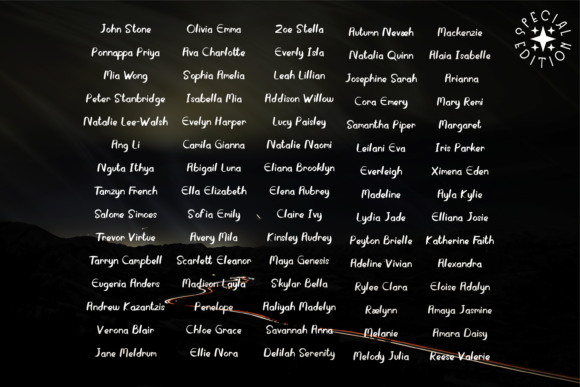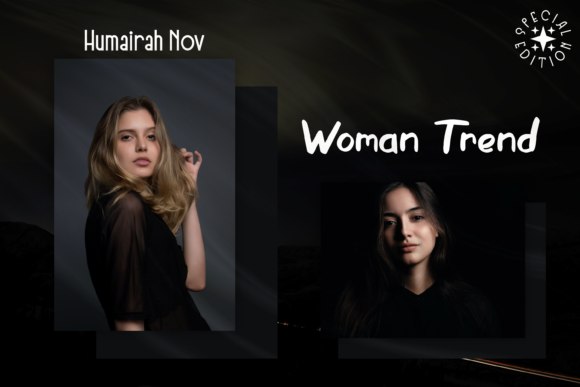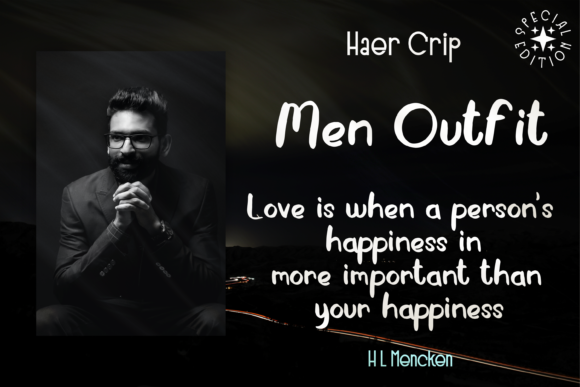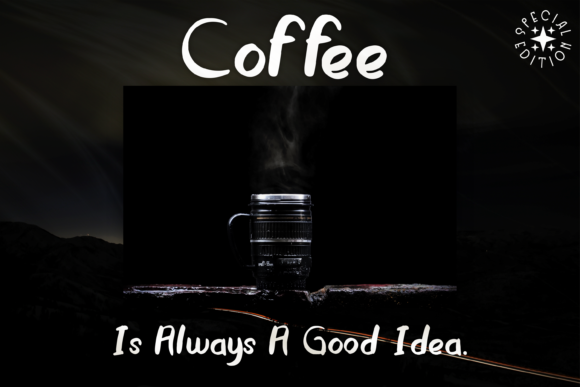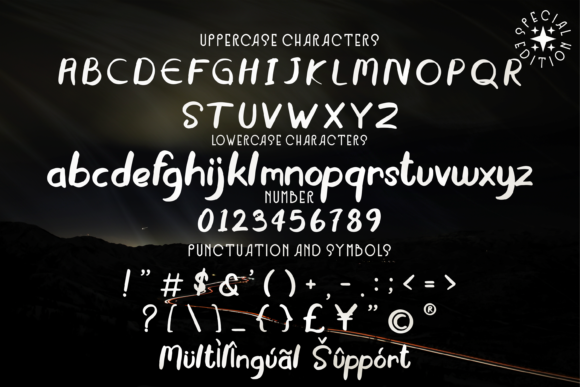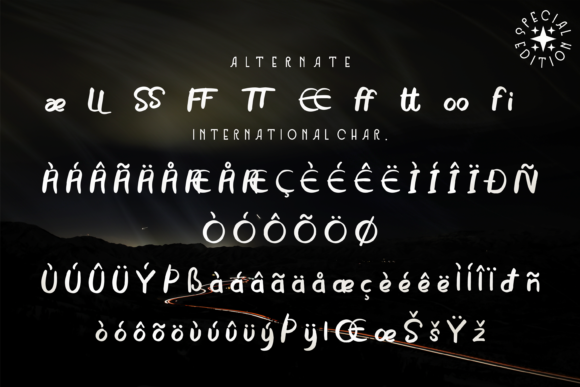
The Ultimate Display Font: A Deep Dive into Adinda
Have you ever been in the middle of a design project, and suddenly, you’re stuck on finding the perfect font? I recall a recent experience where I was working on a client’s branding project, and I just couldn’t find a font that screamed ” elegance” and “versatility” at the same time. That’s when I stumbled upon Adinda, a neat and stylish display font that has become my go-to for bold projects and simple designs alike.
First Impressions: What I Love About Adinda
Adinda has won me over with its impressive features. Here are a few things I absolutely love:
- ✨ Versatility: Adinda can be used for titles, bold projects, and even small text and simple designs.
- ✅ Elegant and Clean: The font has a sleek, modern look that adds a touch of sophistication to any design.
- 💡 OpenType Features: Adinda comes with a range of OpenType features, including stylistic alternates and glyphs, which give you plenty of creative options.
The Not-So-Perfect: A Few Quirks
While Adinda is an amazing font, it’s not without its limitations. Here are a few things to keep in mind:
- 🤔 Limited Use in Body Text: While Adinda is perfect for titles and headings, it might not be the best choice for body text due to its display font nature.
- ⚠️ Some Kerning Issues: I’ve noticed that Adinda can have some kerning issues, especially when using certain character combinations.
The Story Behind Adinda
Adinda was designed with versatility in mind. The creator aimed to craft a font that could be used in a variety of design projects, from bold titles to simple designs. With its clean lines and elegant curves, Adinda has become a popular choice among designers.
| What is Adinda best used for? | Adinda is best used for titles, headings, and bold projects, but it can also work well for small text and simple designs. |
| Is Adinda suitable for body text? | While Adinda can be used for body text, it’s primarily designed as a display font, so it might not be the best choice for longer blocks of text. |
| Does Adinda come with OpenType features? | Yes, Adinda comes with a range of OpenType features, including stylistic alternates and glyphs. |